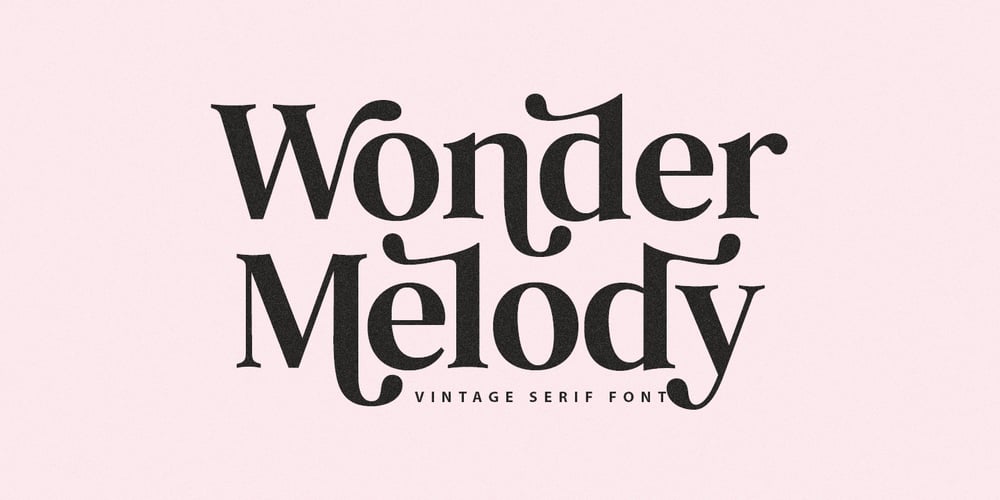
Wonder Melody Font Family was designed by Dmitrii Chirkov and published by Supfonts. Wonder Melody contains 1 styles and family package options. This font is ideal for various design applications, including branding, logos, social media, prints, stickers, shirts, and SVG files. Wonder Melody is versatile and can be suitable for both free-spirited, boho designs and more sophisticated editorial looks.Additionally, the font offers many exciting stylistic alternatives that are readily available within the font file. These alternatives can be easily accessed by adding special characters to letters. Instructions for use are in the packageWonder Melody Font Features:- Full Set of standard alphabet and punctuation- Ligatures- PUA Encoded – no special software needed to access extra characters- Language support: All European languages- Multilingual Characters AÁĂÂÄÀĀĄÅÃÆBCĆČÇĊDÐĎĐEÉĚÊËĖÈĒĘẼFGĞĢĠḠHĦIIJÍÎÏİÌĪĮĨJKĶLĹĽĻŁMNŃŇŅÑ OÓÔÖÒŐŌØÕŒPÞQRŔŘŖSŚŠŞȘẞTŤŢȚUÚÛÜÙŰŪŲŮŨVWẂŴẄẀXYÝŶŸỲỸZŹŽŻ aáăâäàāąåãæbcćčçċdðďđeéěêëėèēęẽfgğģġḡhħiıíîïìijīįĩjȷkķlĺľļłmnńňņñoóôöòőōøõœpþ qrŕřŗsśšşșßtťţțuúûüùűūųůũvwẃŵẅẁxyýŷÿỳỹzźžżThanks so much for checking out my shop, and please get in touch if you have any questions! Don’t forget to subscribe so you don’t miss out on the new awesome fonts